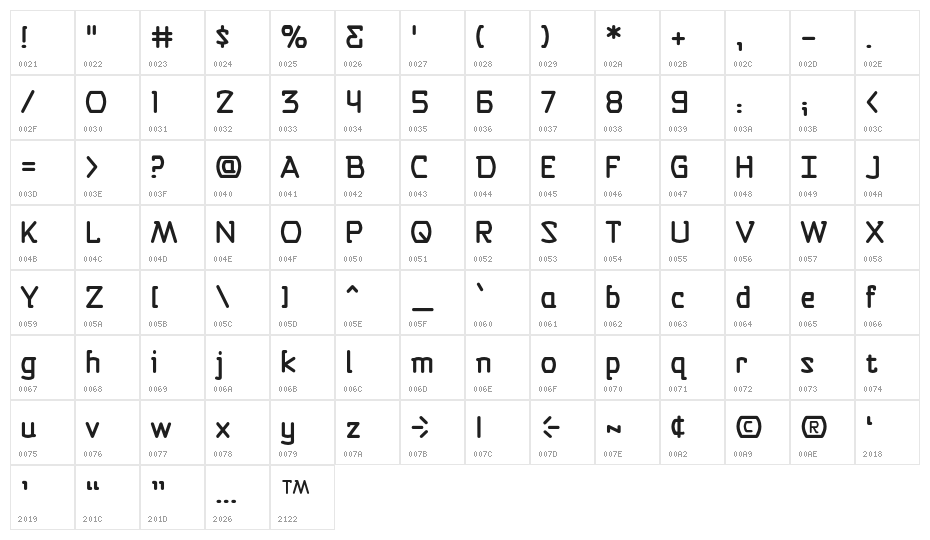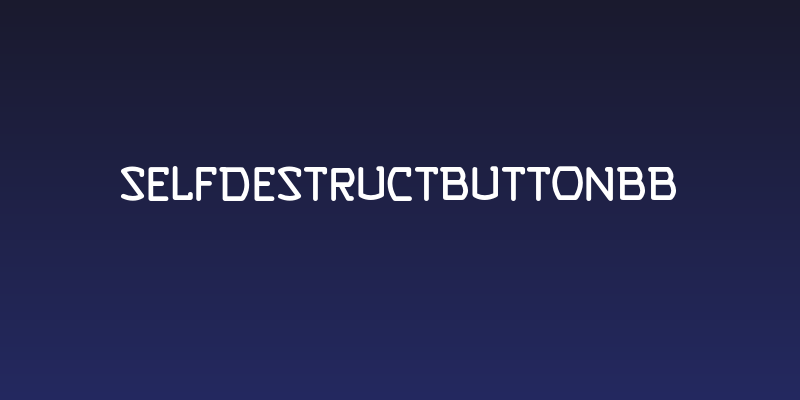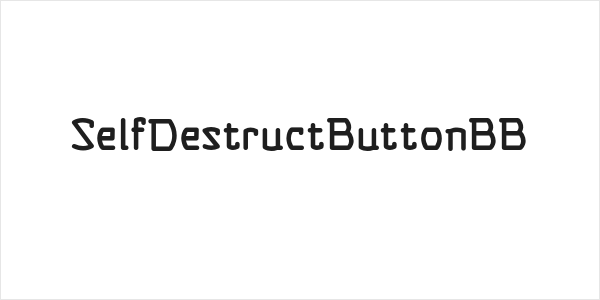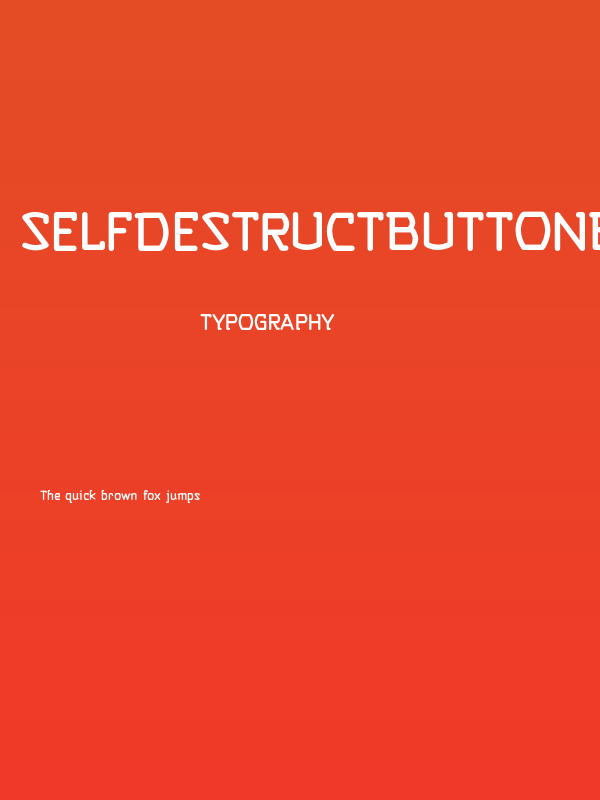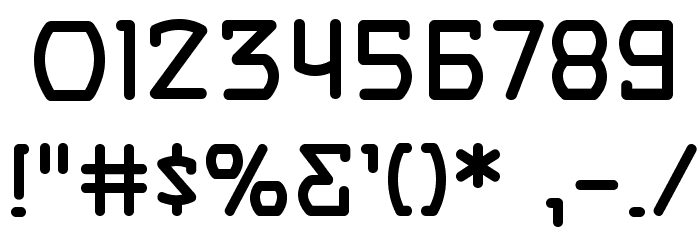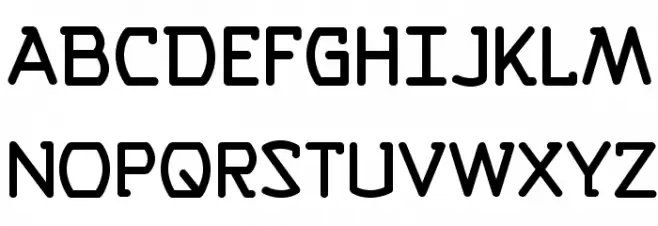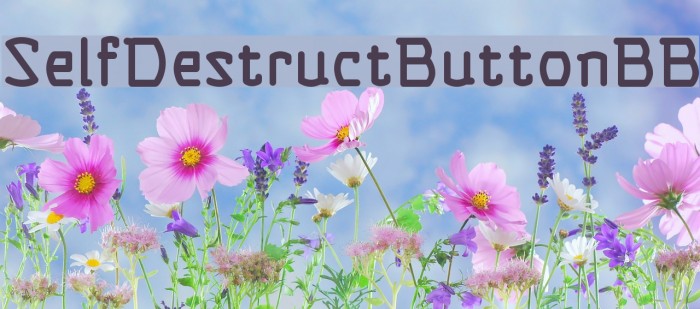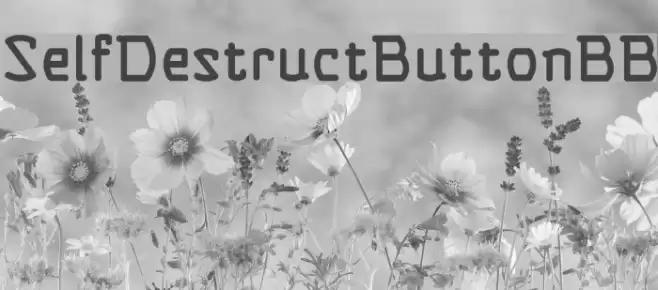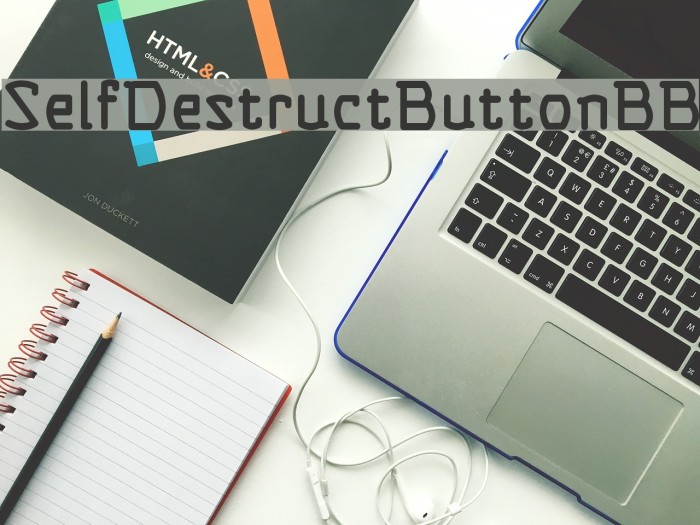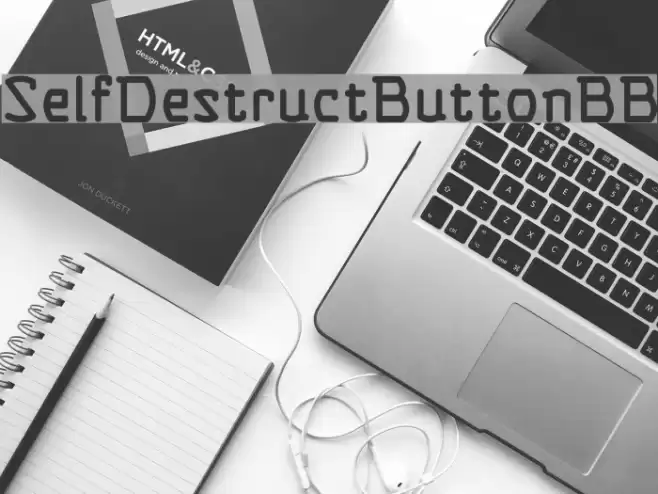
SelfDestructButtonBB Font
SelfDestructButtonBB Description
This font features a bold, rounded style with a modern and slightly futuristic appearance. The characters are uniformly thick, giving it a strong presence. The rounded edges soften the overall look, making it approachable yet assertive. The uppercase and lowercase letters maintain a consistent height, while the numerals and special characters blend seamlessly with the alphabet. This font is highly legible, even at smaller sizes, and its unique style makes it stand out in any design.
| Proposed Projects | Ideal for technology branding, video game titles, and modern advertising campaigns. |